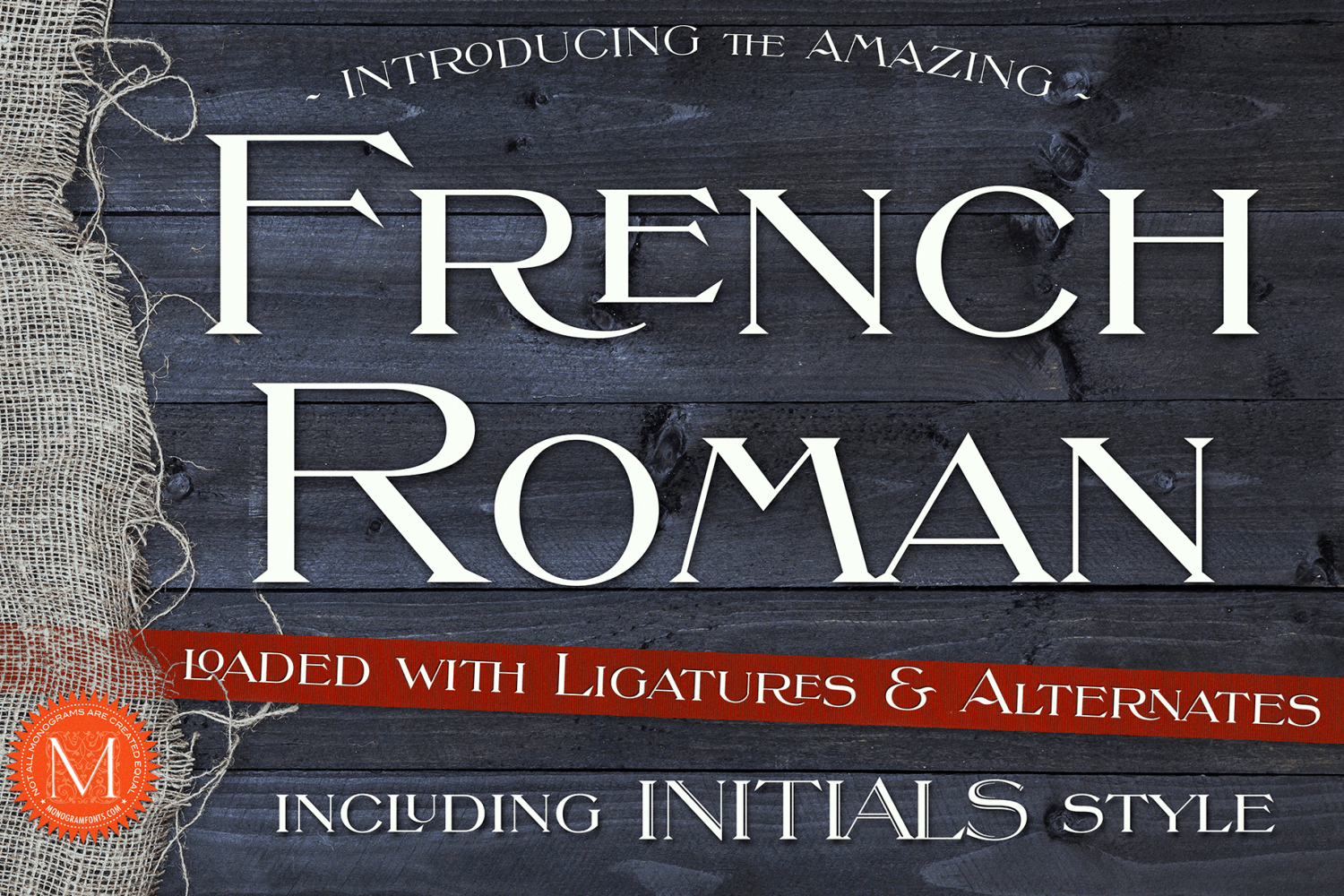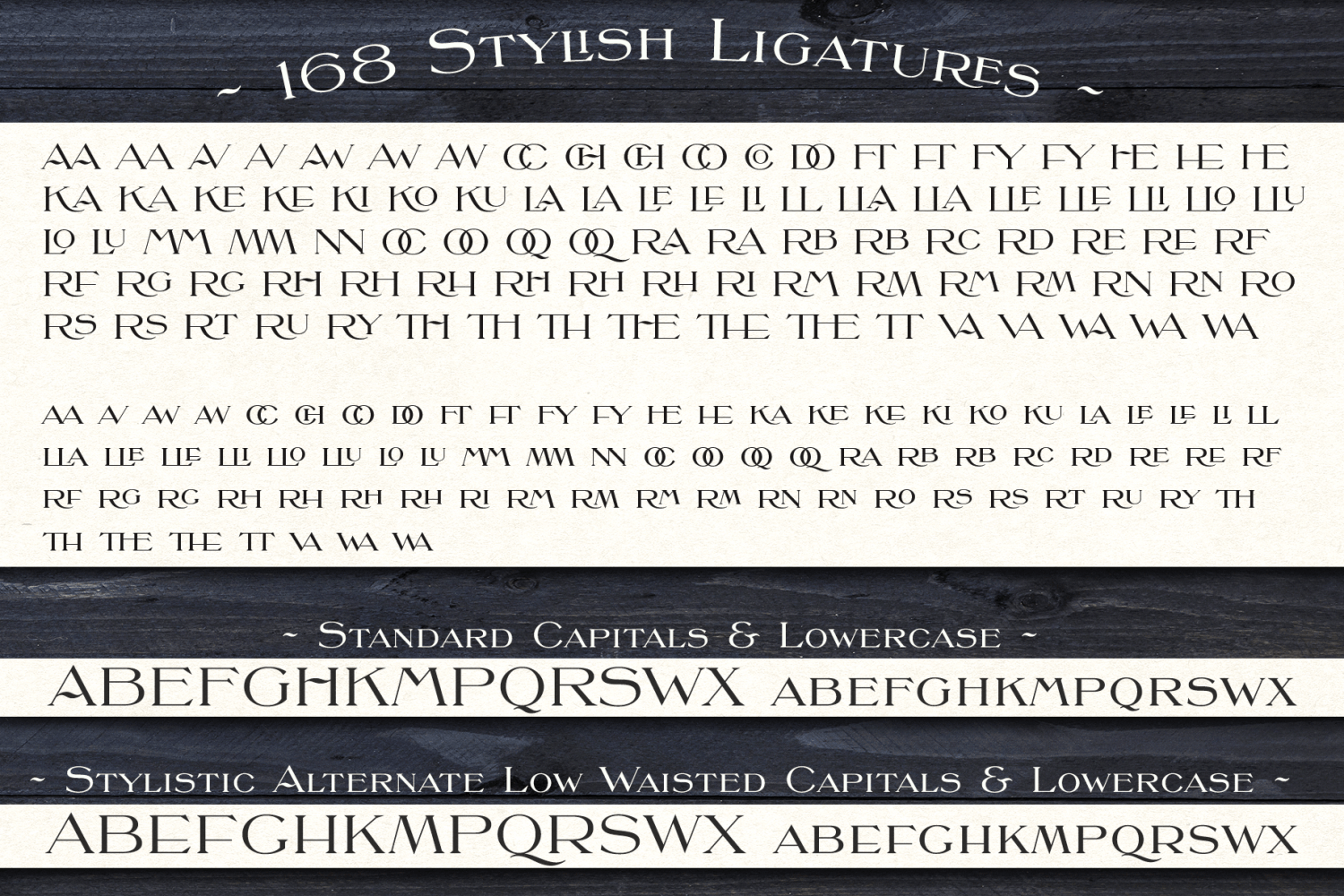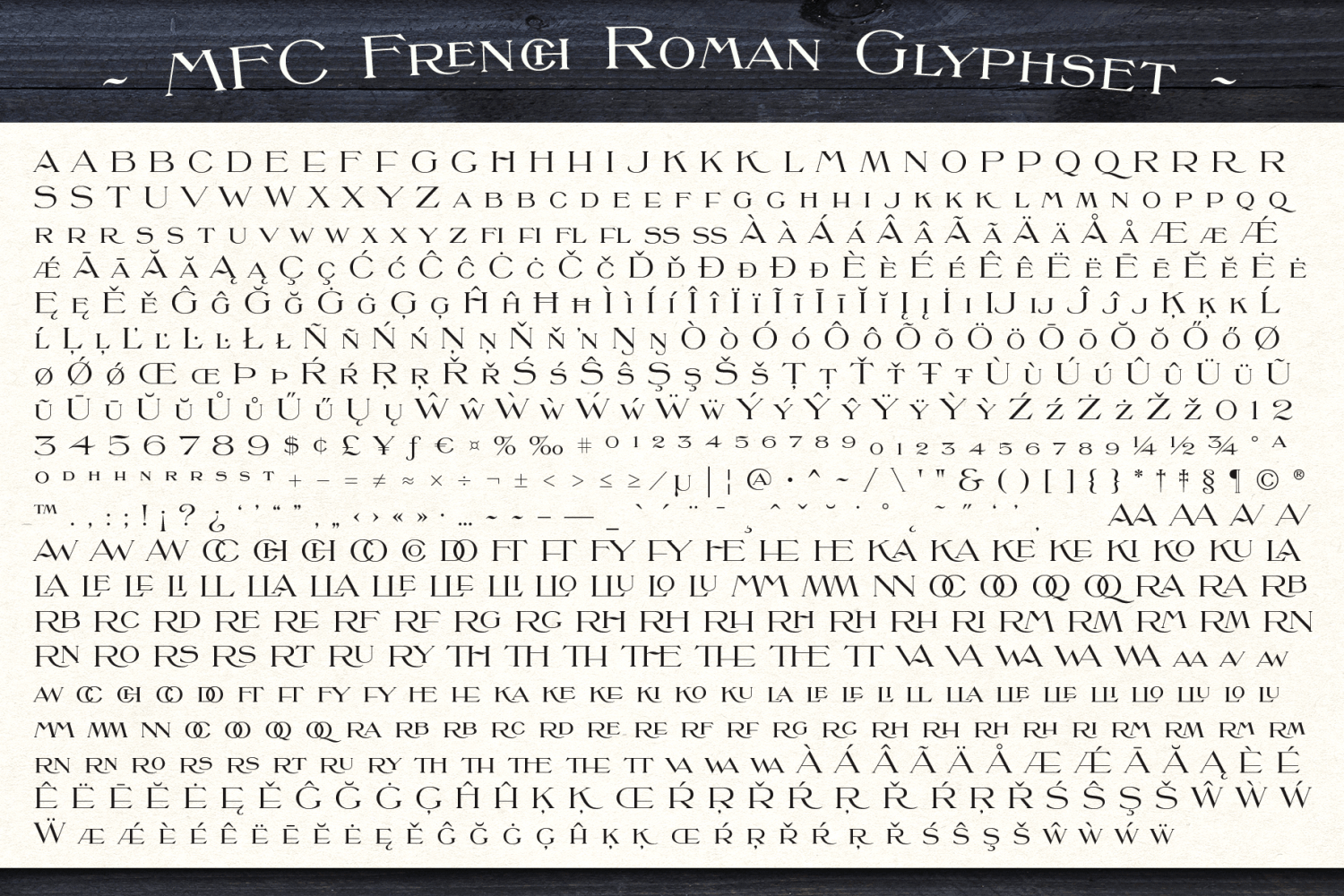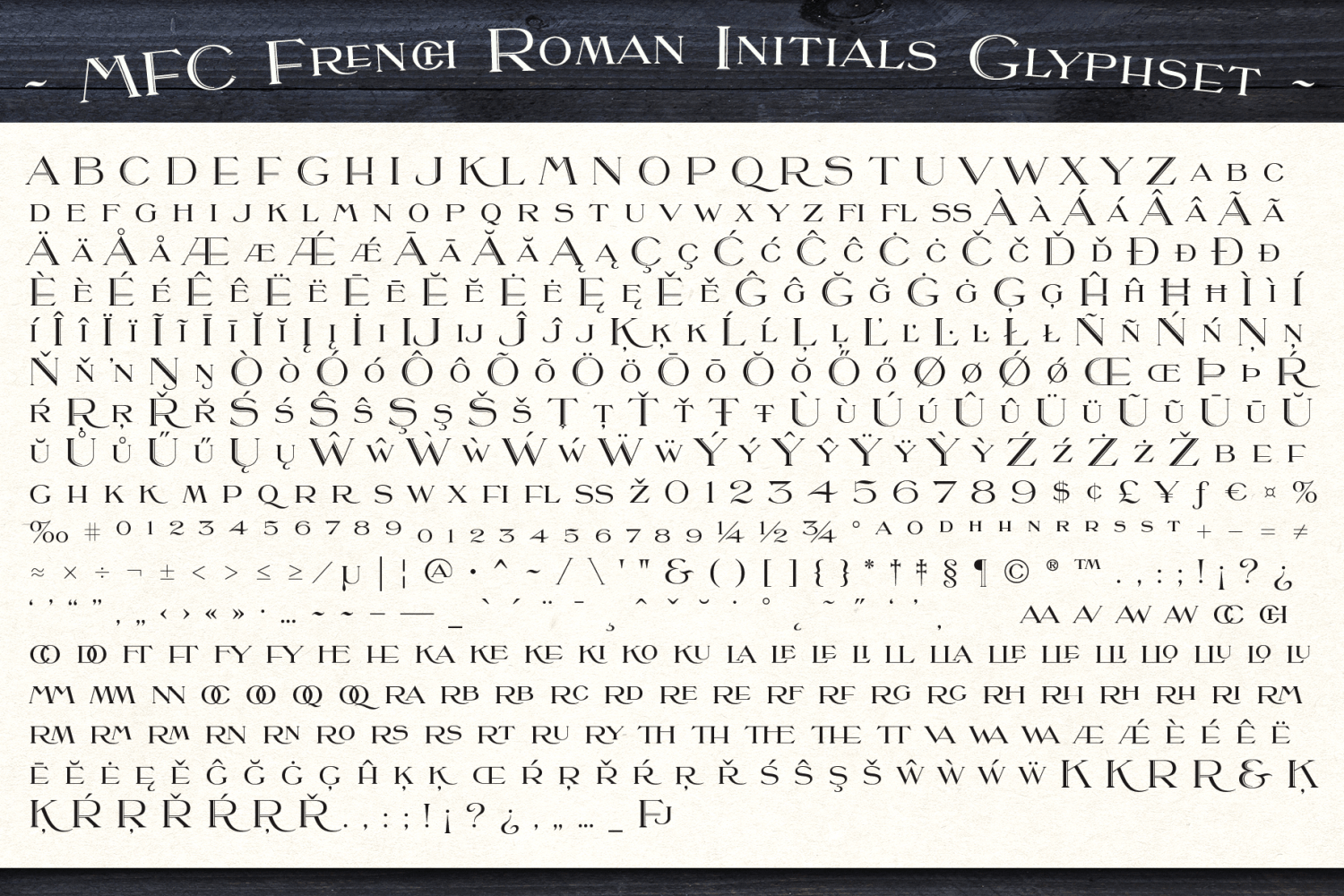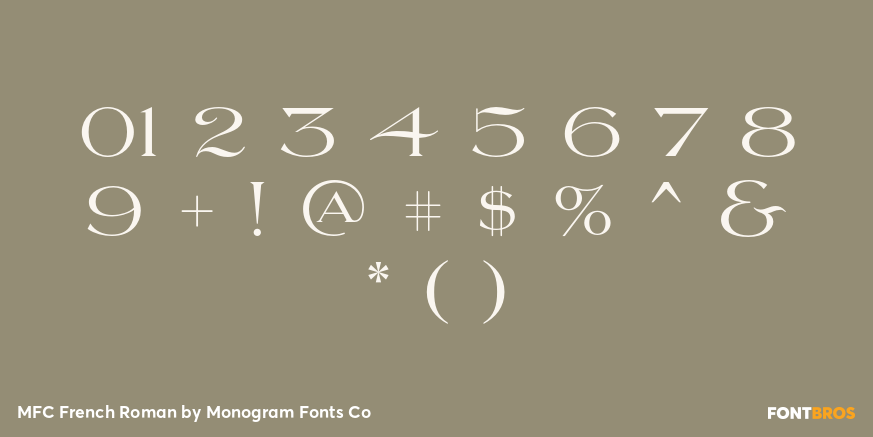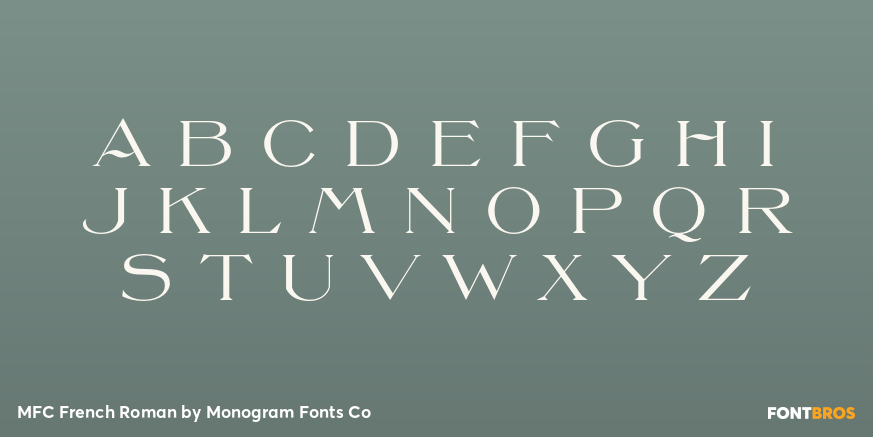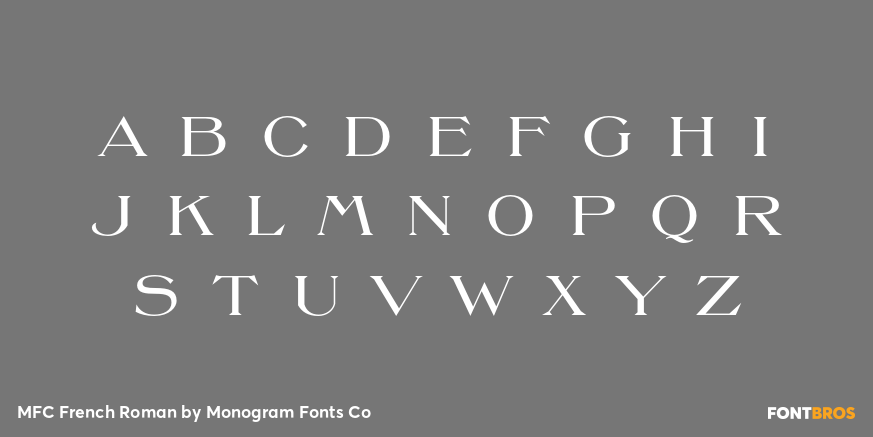
MFC French Roman
Font Family by Monogram Fonts Co
The inspiration source for MFC French Roman is an elegant wedge-serif letter-style simply referred to as "French Roman Light" in an 1899 lettering publication by International Correspondence Schools. This gorgeous lettering style was originally depicted only with Capitals, Numbers, and an Ampersand, which we've precisely recreated and expanded on to create a full typeface with alternate low waisted letters and a large collection of unique ligatures. MFC French Roman sets uniquely by default with ligatures on, but if you want a more traditional typeset experience, simply disable ligatures in your program of choice.
Taking the typestyle further, we created MFC French Roman Initials, which raises the smallcaps up to center on the capitals (allowing for standard or monogram typesetting), and all the capitals have been accentuated with additional line features to make them stand out even more.
- 716 glyphs in MFC French Roman - including Capitals, Lowercase, Numerals, Punctuation and an extensive character set that covers multilingual support of latin based languages. (see the last graphics for a preview of the characters included) - 586 glyphs in MFC French Roman Initials - including Capitals, Lowercase, Numerals, Punctuation and an extensive character set that covers multilingual support of latin based languages. (see the last graphics for a preview of the characters included) - Stylistic Alternates - alternate low-waisted letterforms and alternate forms. - Additional Style Sets - for alternate ligatures and forcing long tails on.